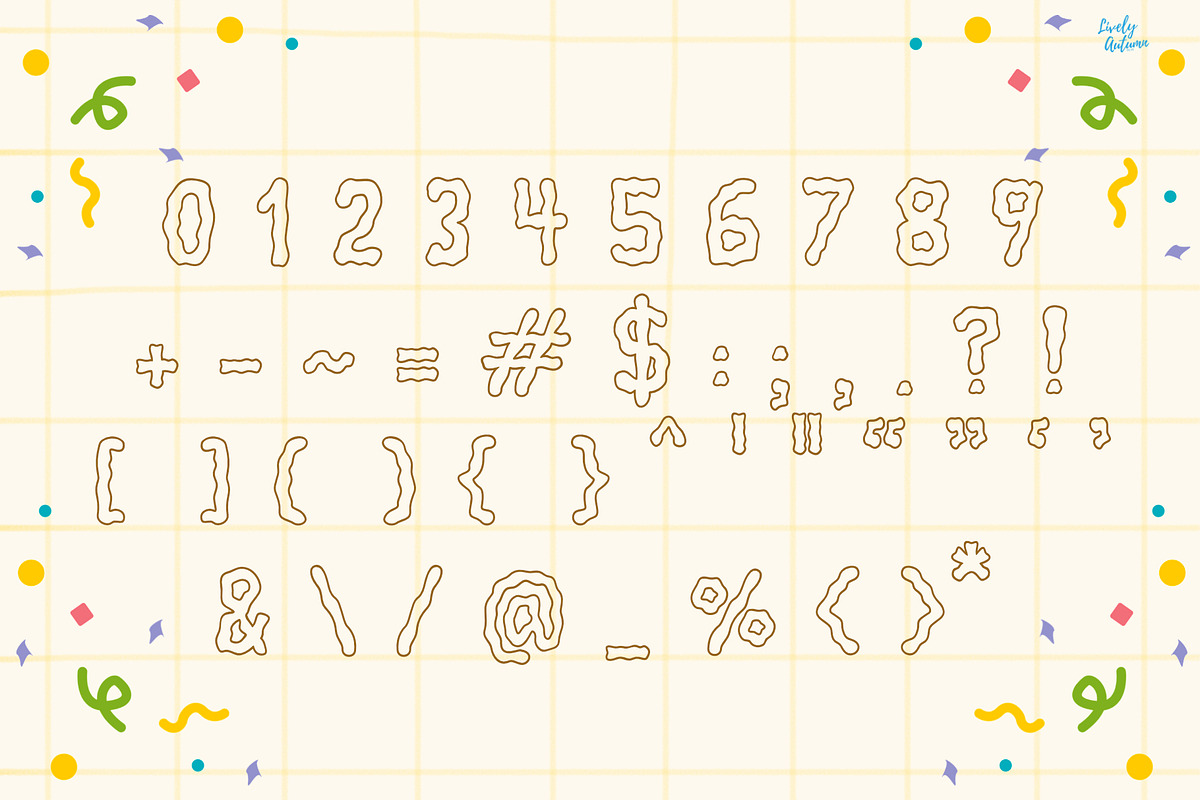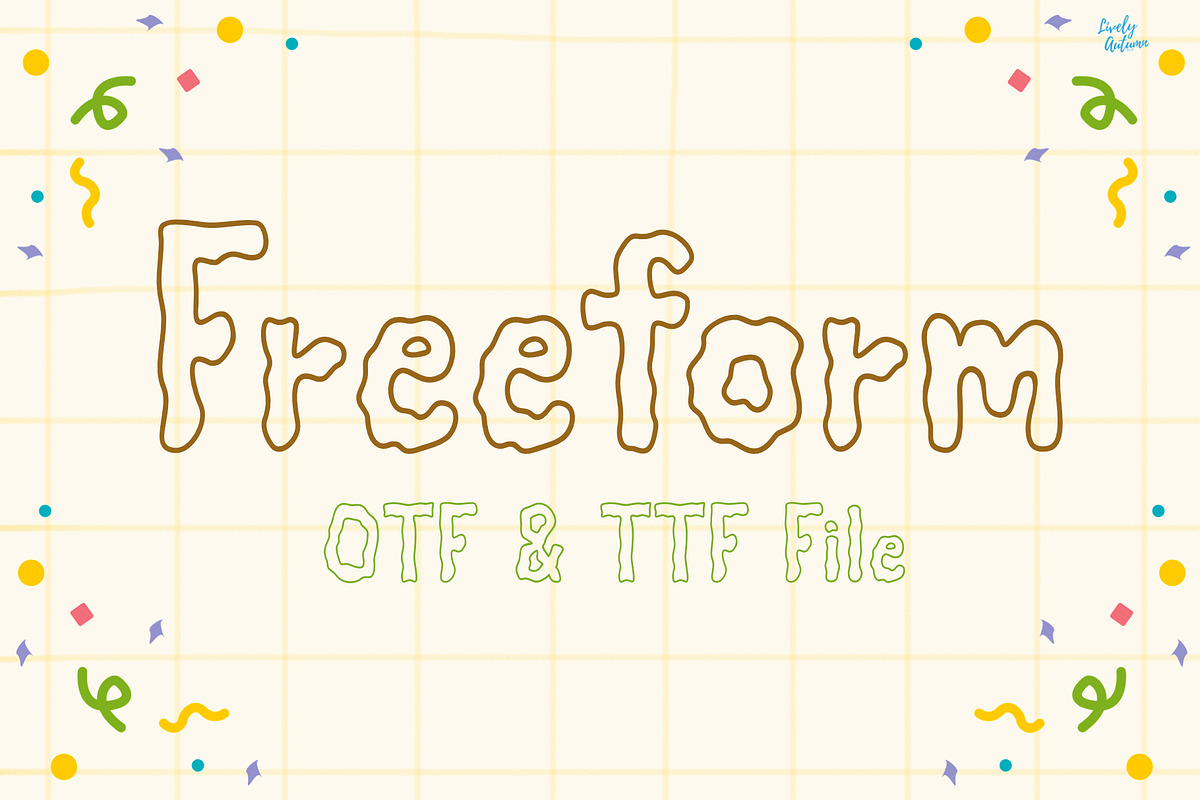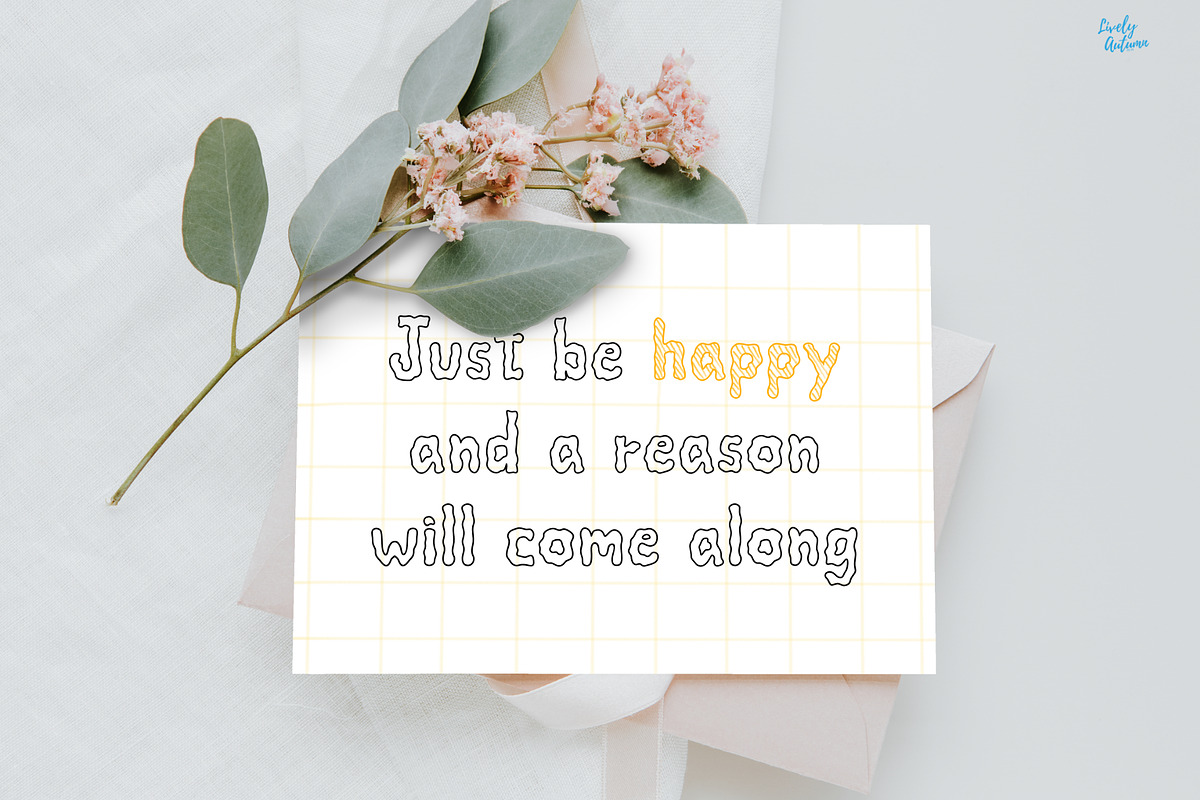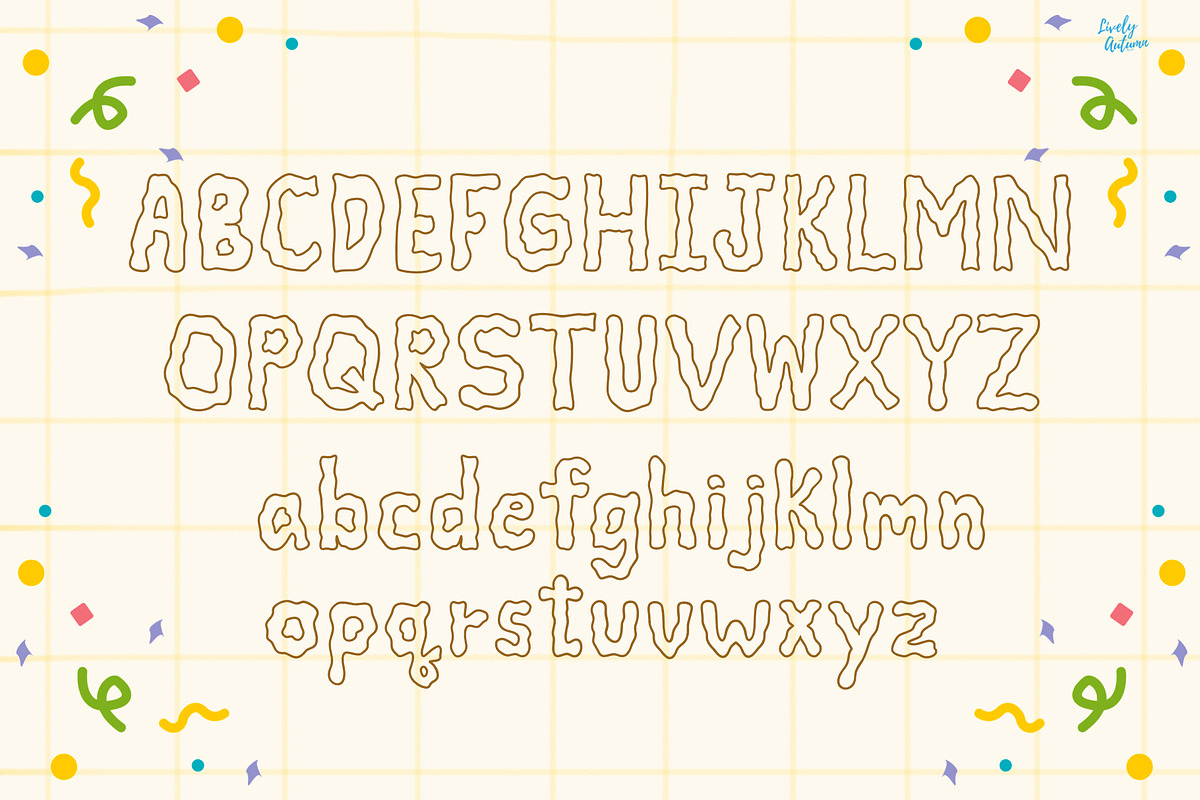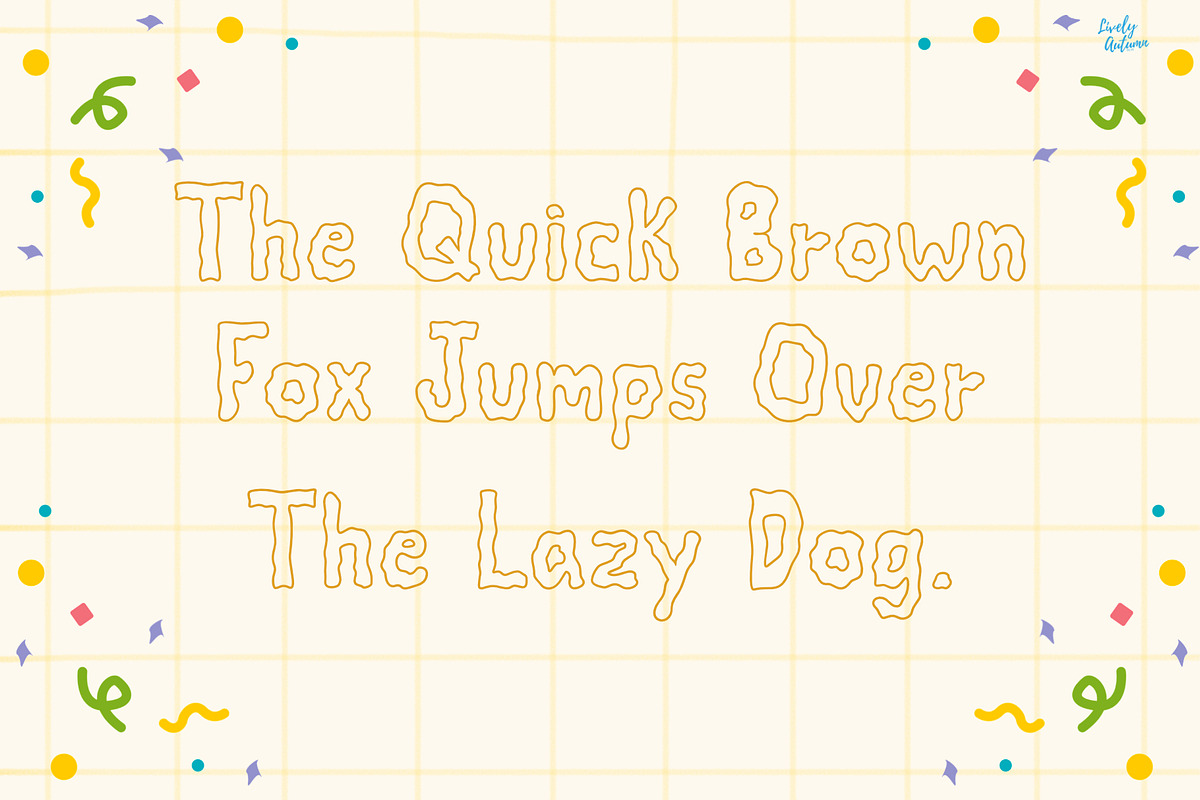
Freeform | Hand drawn font
Freeform is a playful hand-drawn outline font inspired by loose, carefree doodles. Perfect for your fun personal projects and various projects. From invitations to posters, social media graphics, journals, greeting cards, and much more.
- Font includes: uppercase, lowercase, numbers, and punctuation.